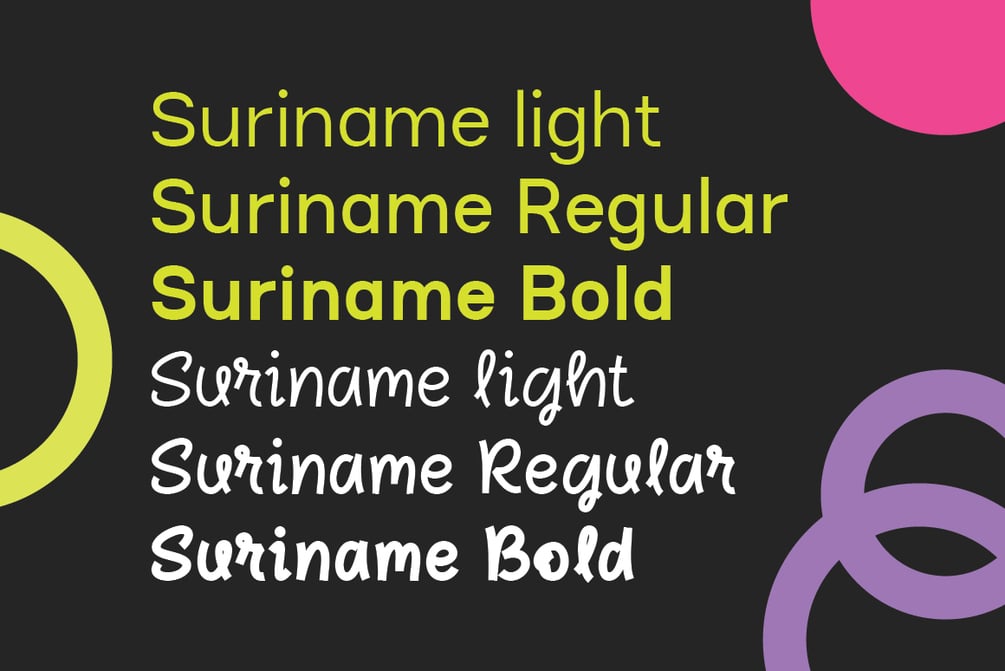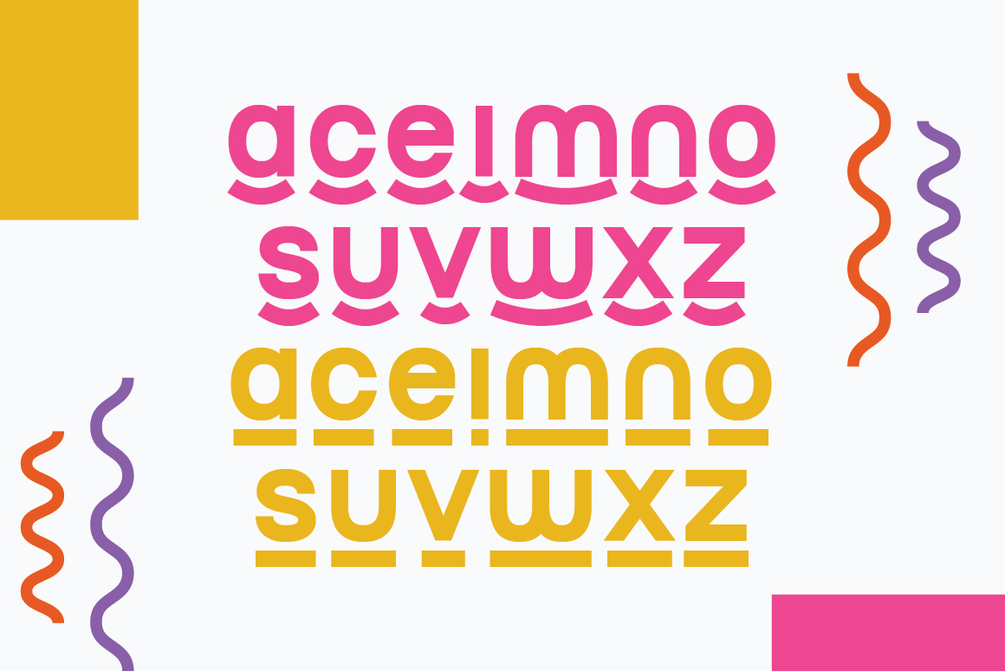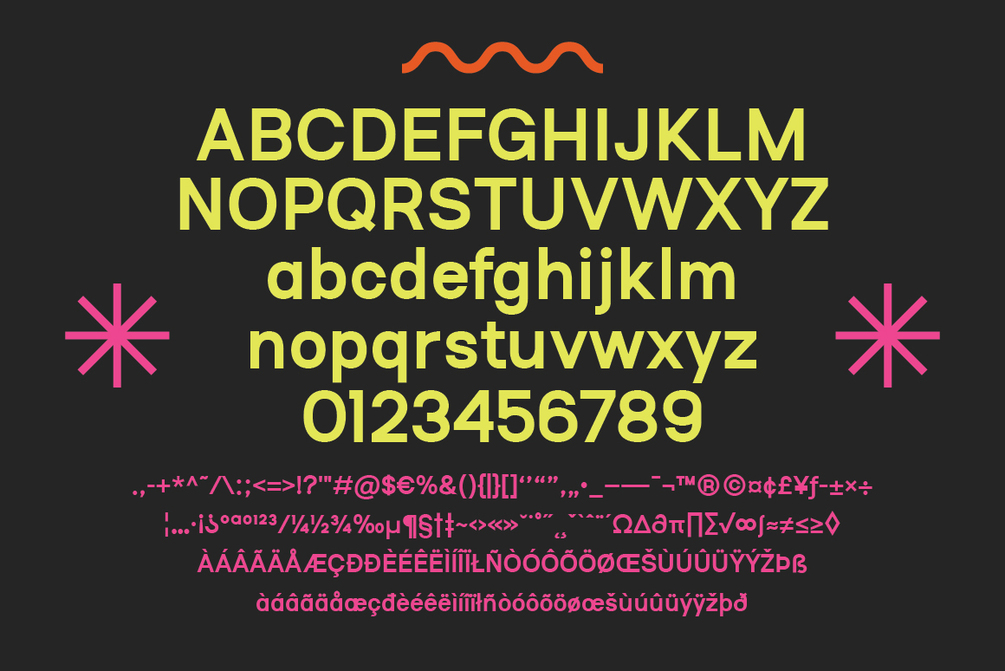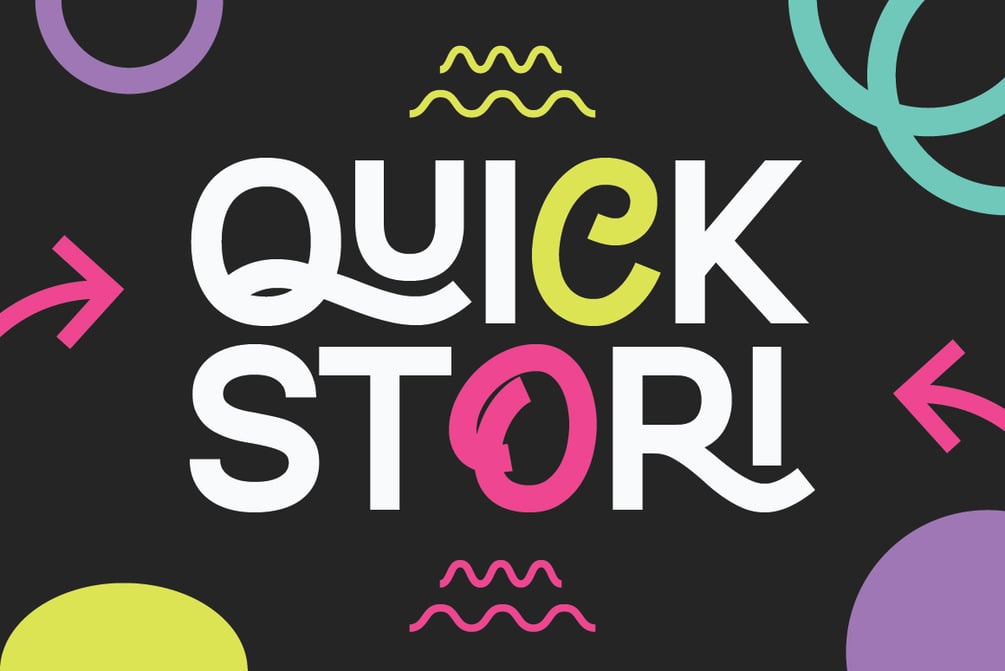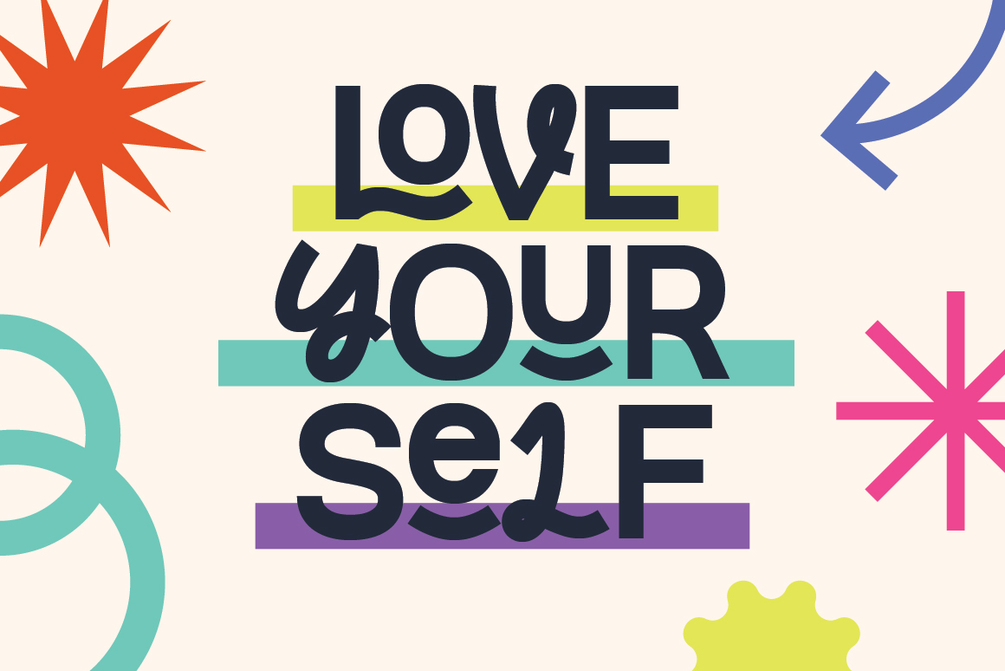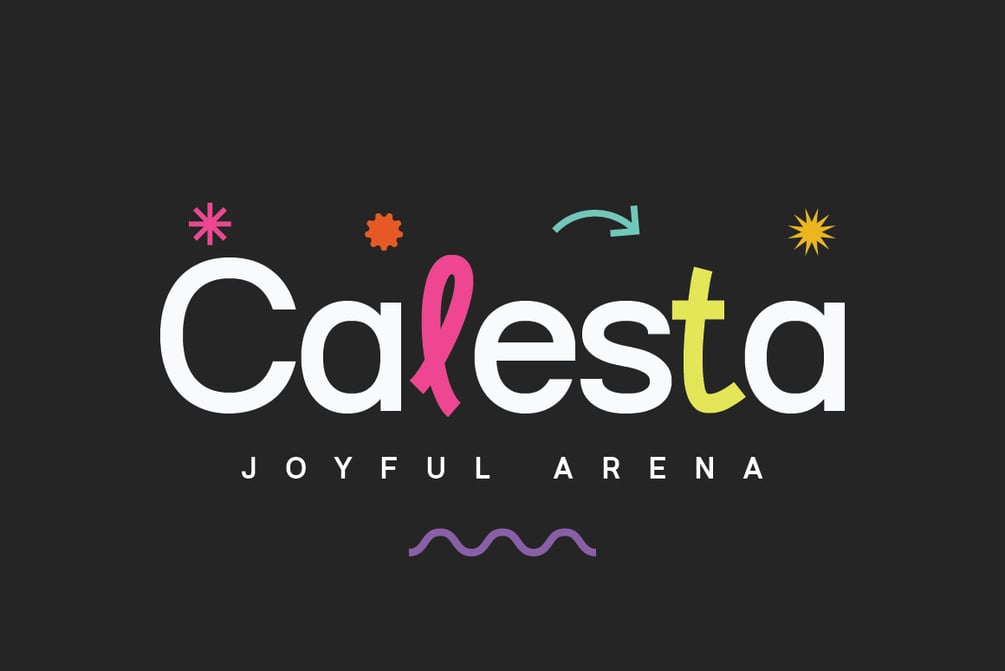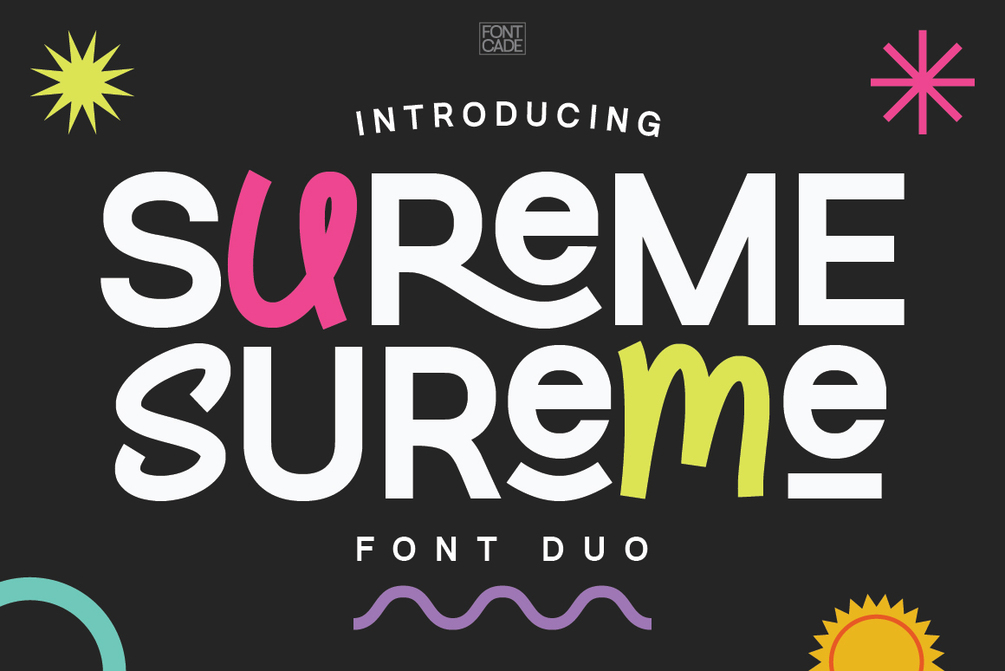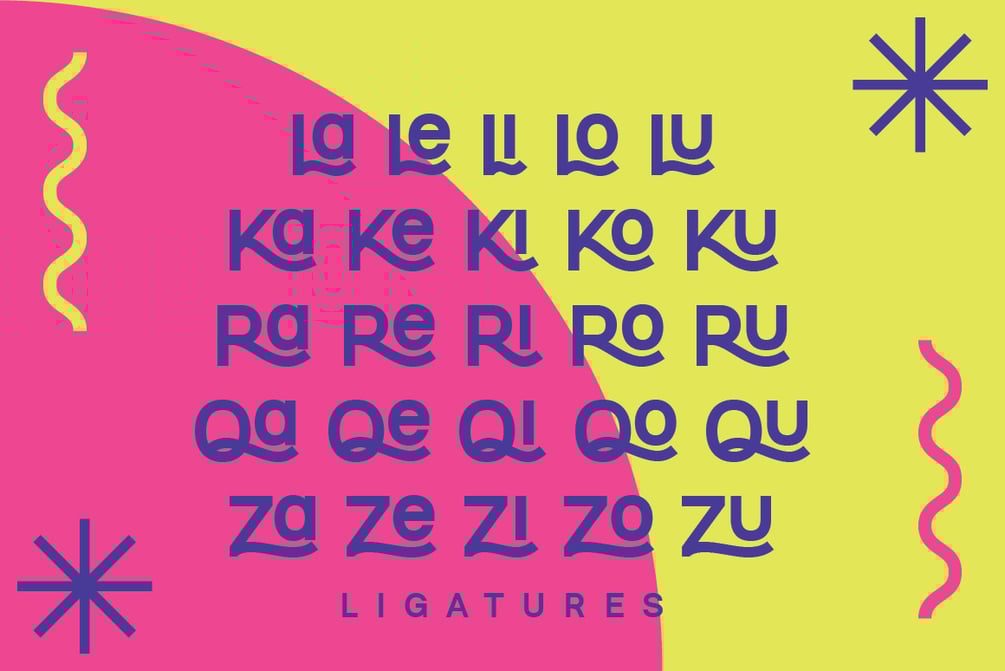
Sureme Font
Sureme is a stylish and playful font duo combining Sans and Script. Designed for versatility, it works beautifully on its own or in creative pairings. With smooth ligatures, lively small caps, and both uppercase and lowercase styles, Sureme gives you endless design possibilities. Available in three weights for each style, you’ll get six fonts in total to explore!
• Sureme Regular, Light, Bold, Script, Light Script, and Bold Script
• 25 Ligatures
• Uppercase, Lowercase, Numbers, Punctuation, and Symbols